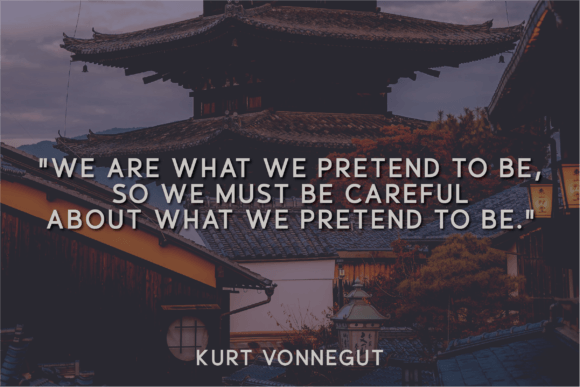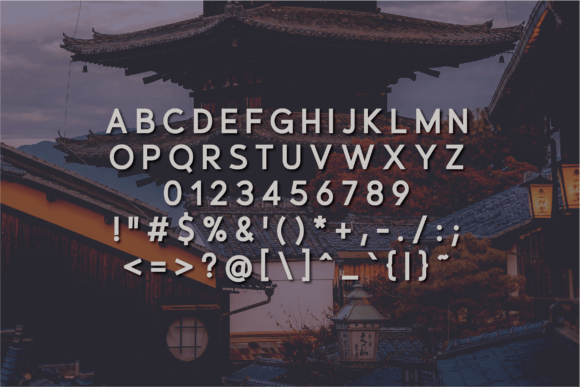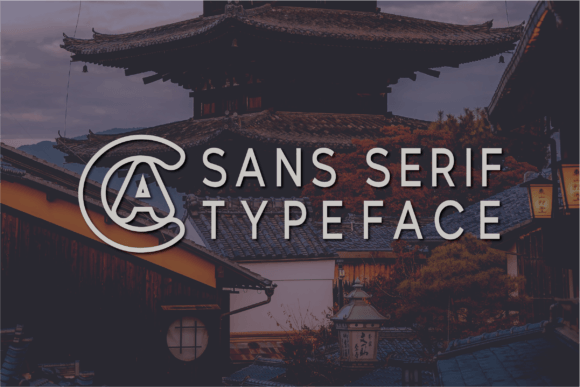
Introduction to Serenity Font
Serenity is a versatile, modern, and classy sans serif font perfect for logos, weddings, invitations, quotes, advertisements, print, magazines, and more.
Add it to your most creative ideas, and notice how it makes them come alive .
Key Features of Serenity Font
Why Choose Serenity Font?
Serenity Font offers exceptional quality and versatility, making it a valuable addition to your design toolkit. Whether you’re creating for personal projects or commercial use, Serenity Font delivers professional results.